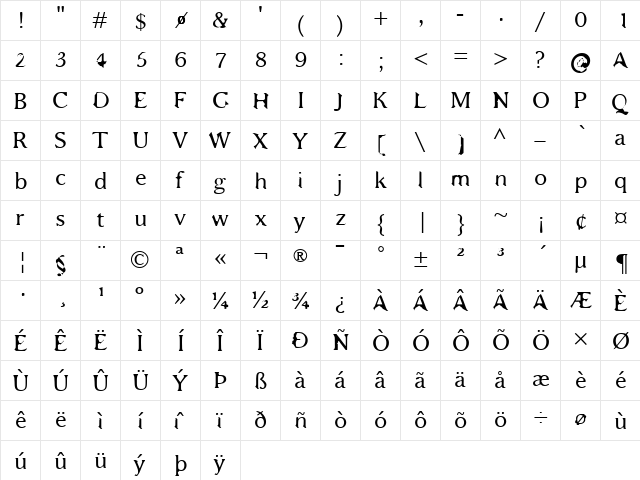
Bajsmaskin Regular
Design Context for Bajsmaskin Typeface
Bajsmaskin takes a measured approach to typography — its balanced proportions and neutral character make it a reliable workhorse for both digital and print work.